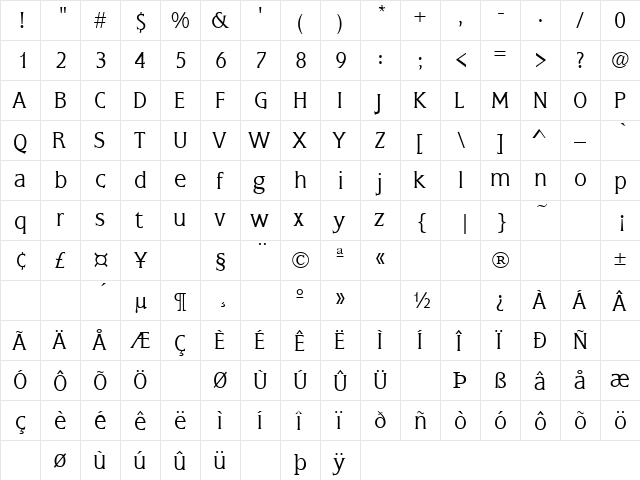
High Hopes 1 Regular
Design Context for High Hopes 1 Typeface
High Hopes 1 offers clean, dependable letterforms without strong stylistic allegiance, making it a practical choice for designers who need flexibility.